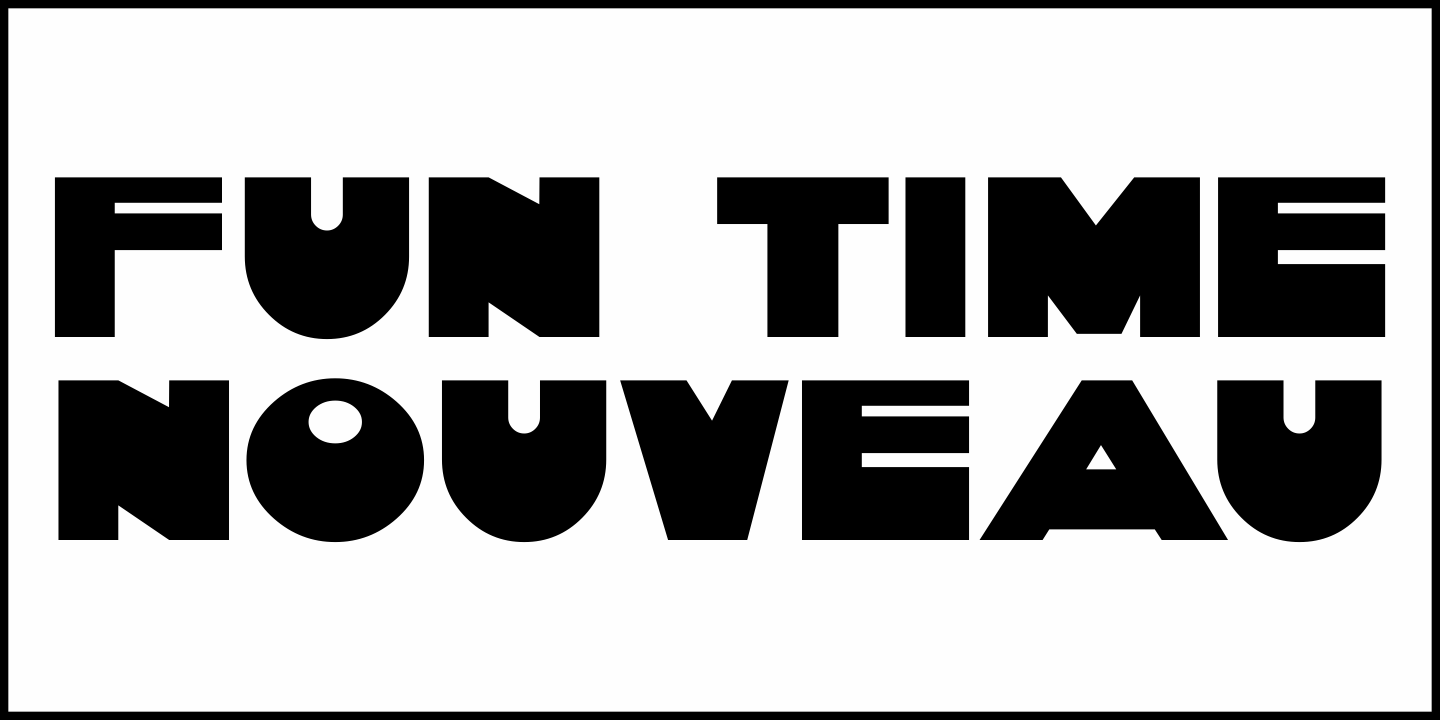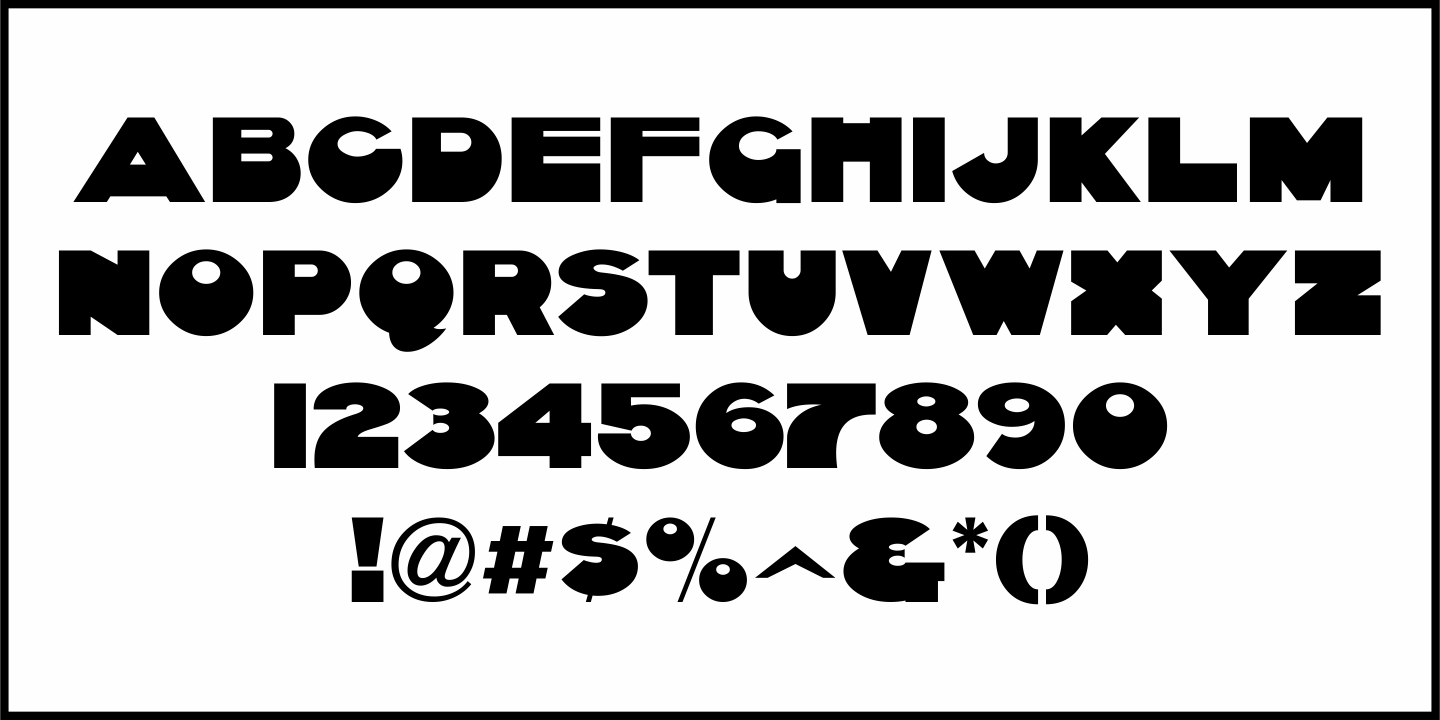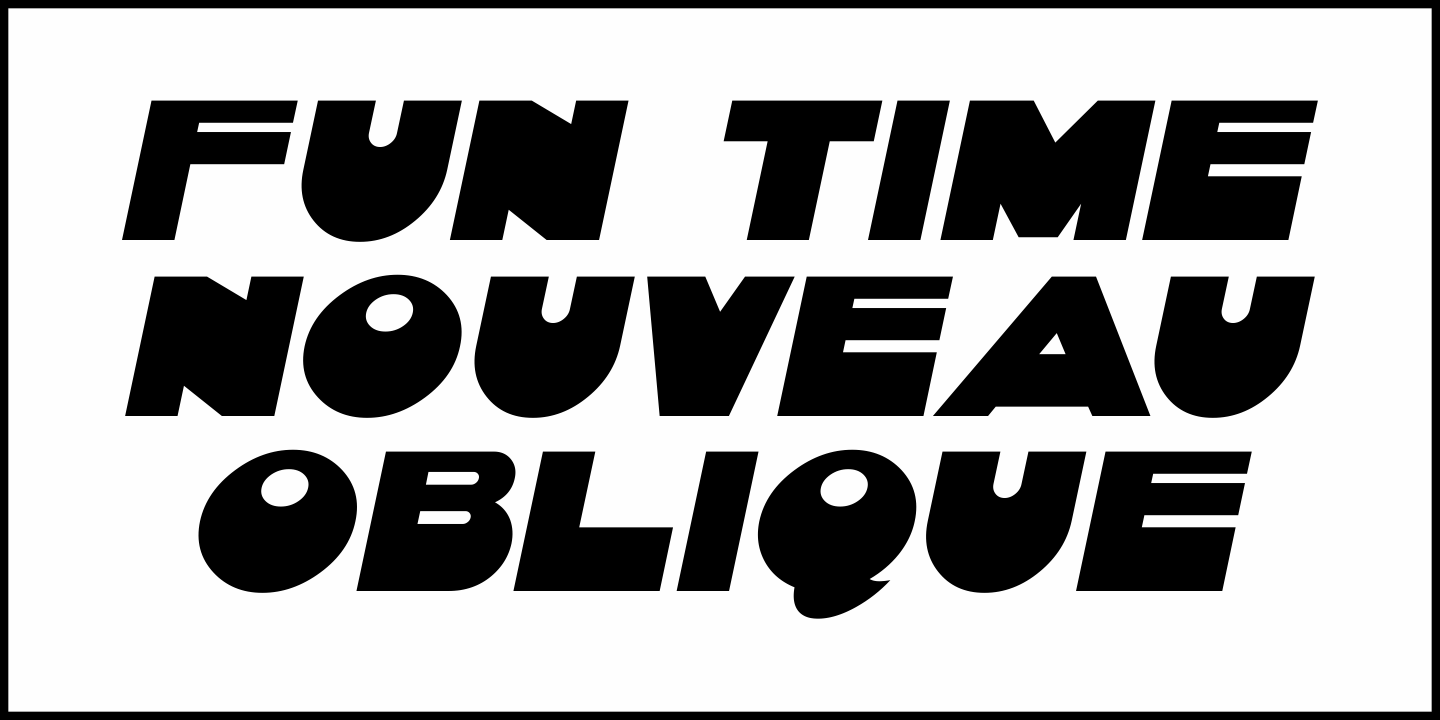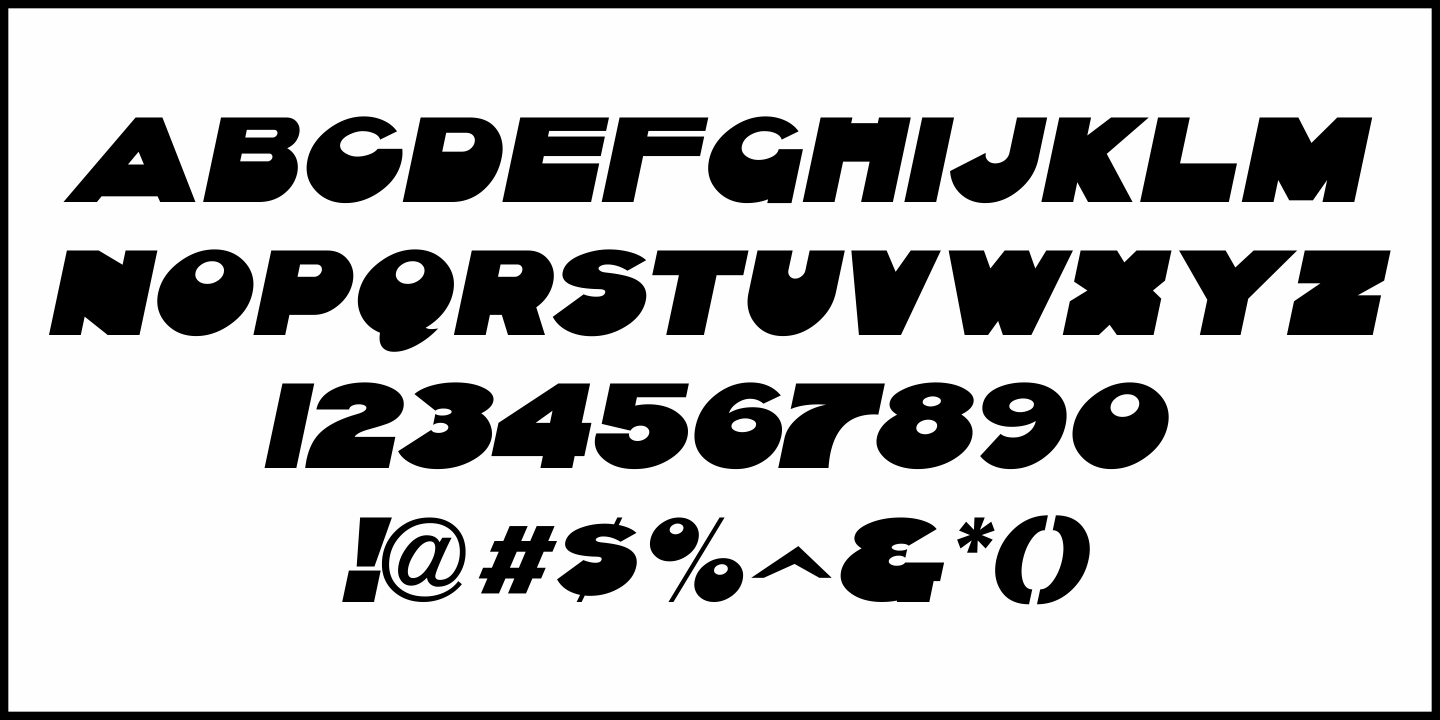
Fun Time Nouveau
“One Hundred Alphabets for the Show Card Writer” was published in 1919 to afford sign artists the ability to create signs and show cards in then-contemporary lettering styles.
One such alphabet was big, bold and representative of the Art Nouveau stylings popular in the early part of the 20th Century. Most likely it was applied to store sales and public events that were casual and informal, for its letter forms are free of any constraints.
This design is now available as Fun Time Nouveau JNL in both regular and oblique versions.